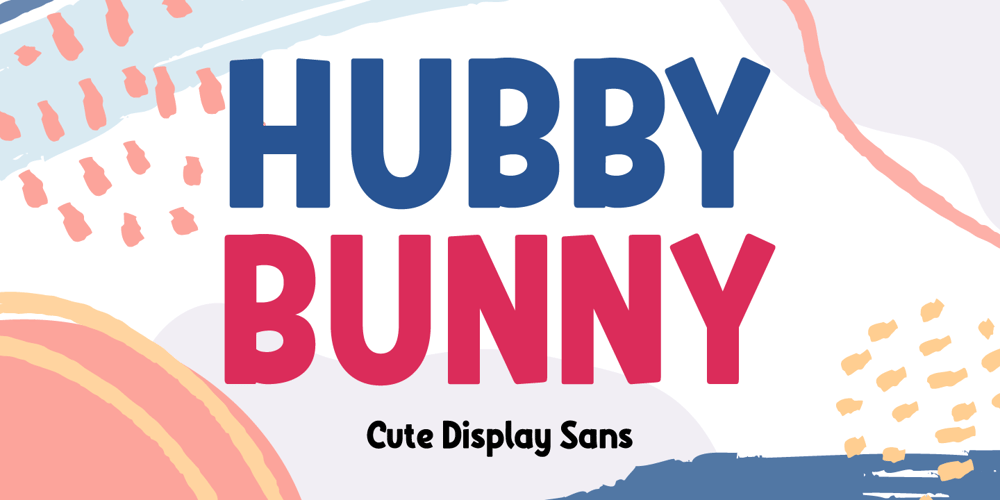
Hubby Bunny
Hubby Bunny font
Hubby Bunny Font Family was designed by Abdul Malik Wisnu and published by Almarkha Type. Hubby Bunny contains 1 styles and family package options. Hubby Bunny is a quirky and fun sans full of charm . It will take any DIY-project to the next level!Hubby Bunny is perfect for Craft , product packaging, product designs, label, branding projects, logo, wedding designs, social media posts, advertisements, watermark, invitation, stationery and any projects